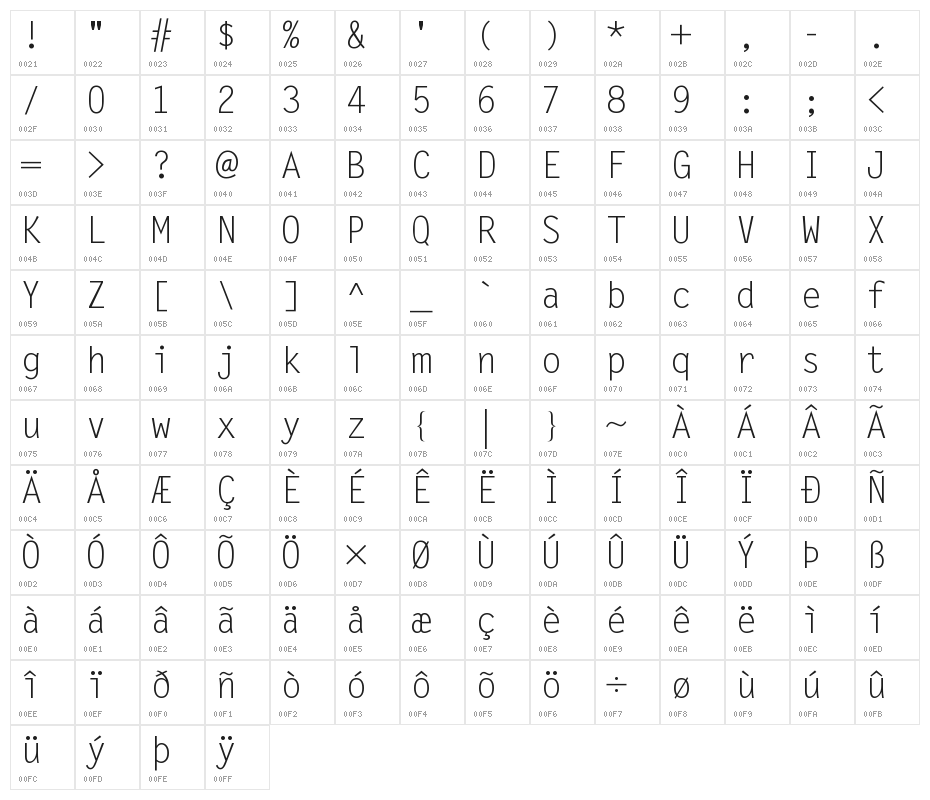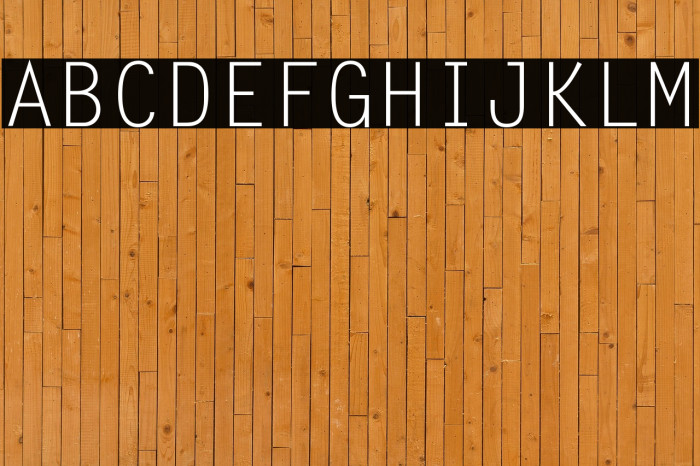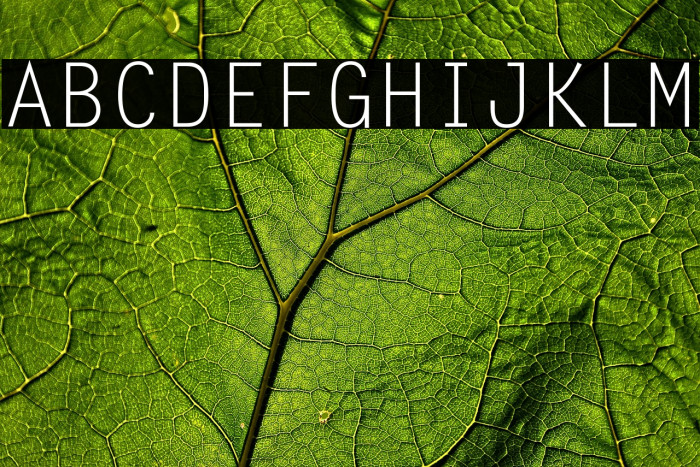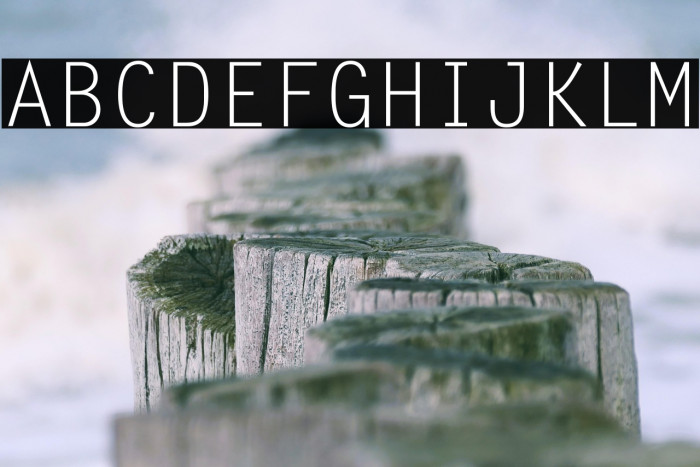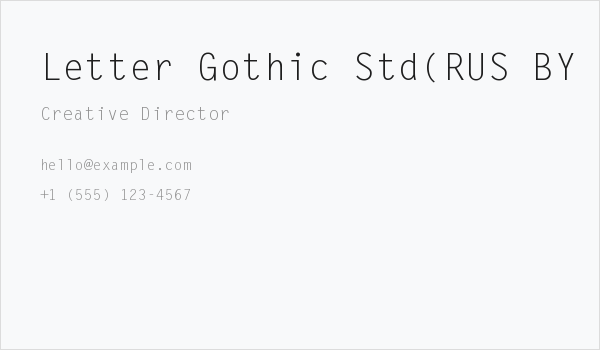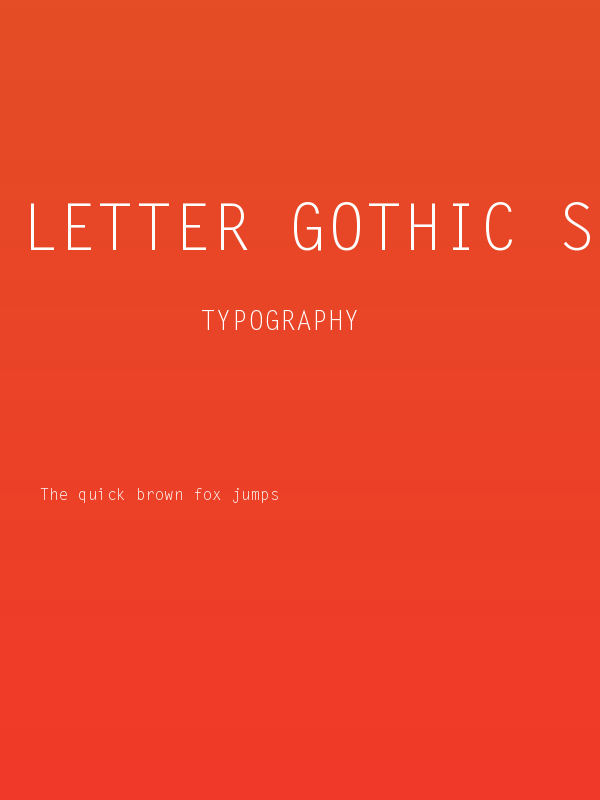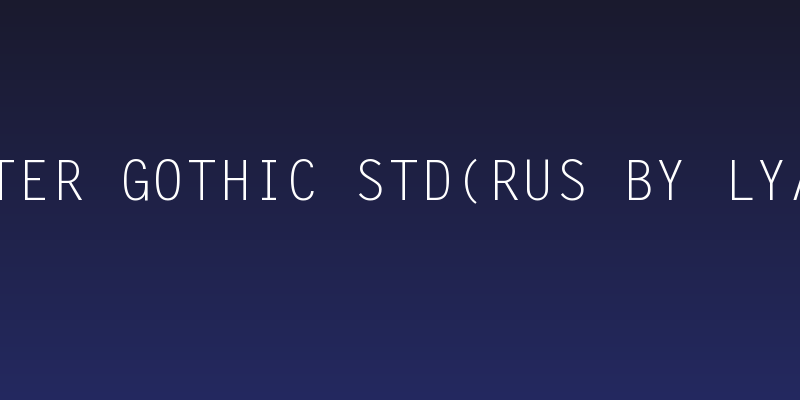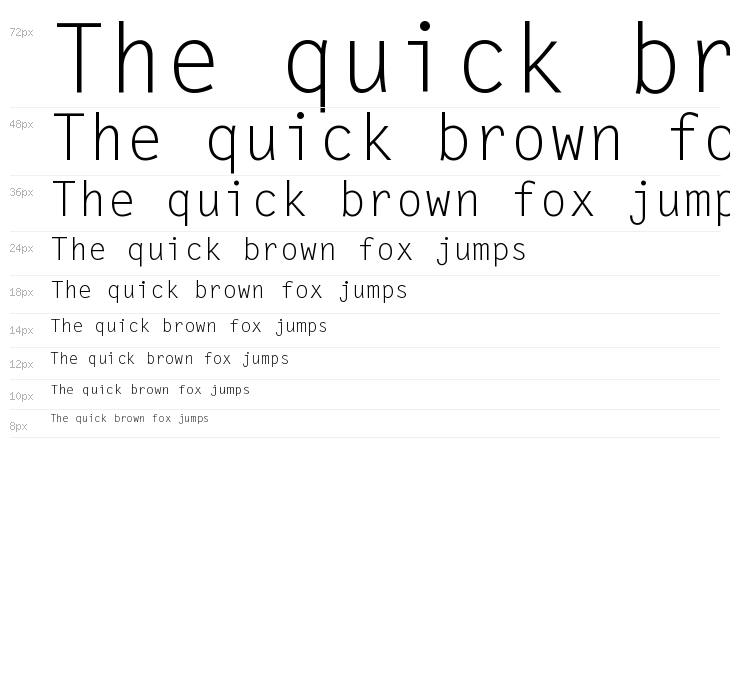
Letter Gothic Std(RUS BY LYAJKA Font
Letter Gothic Std(RUS BY LYAJKA Description
This font exhibits a clean, monospaced design with a modern and minimalist aesthetic. Each character is uniformly spaced, providing a structured and orderly appearance. The strokes are consistent in width, contributing to a low contrast between thick and thin lines. The uppercase letters are tall and slightly narrow, while the lowercase letters maintain a balanced proportion. The numerals are clear and distinct, making them easily readable. Special characters are well-defined, enhancing the font's versatility for various applications. Overall, this font's simplicity and clarity make it suitable for technical documents, coding environments, and any context where readability and precision are paramount.
| Use Case | Headlines, Body text, Logos, Technical documents, Coding |
| Proposed Projects | Ideal for coding, technical documentation, and any project requiring precise alignment and readability. |